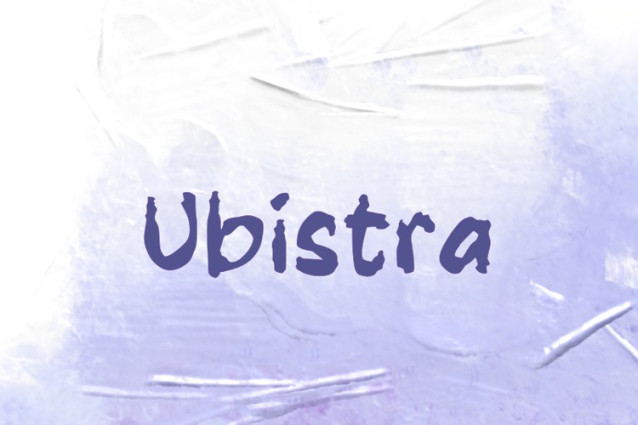
Ubistra Font
Ubistra Font, perfectly fit for branding, logo, wedding things, greeting cards, fashion, lookbook, marketing promotion, anytime you want to look fancy elegant but still casual.